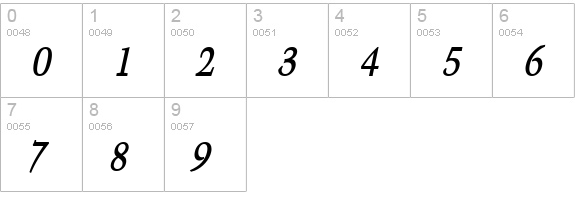
Congo-Condensed Bold Italic is a strong, high-contrast, condensed-width, italic variant in the Congo typeface family \xE2\x80\x94 well suited to headlines, attention-grabbing titles, and strong calls-to-action.
Introducing Congo-Condensed Bold Italic font - a versatile and modern typeface that exudes sophistication and elegance. Its bold yet slanted design adds a touch of flair to any project, making it perfect for a wide range of applications such as branding, advertising, packaging, and more. With its condensed form, this font allows for efficient use of space while maintaining readability and impact. Best of all, Congo-Condensed Bold Italic font is available for free download at FontsMarket.com. This means that you can easily access this high-quality font without any cost, making it a valuable addition to your design toolkit. Whether you are a graphic designer, marketer, or hobbyist, this font offers endless possibilities for creating stunning visuals that stand out from the crowd. Don't miss out on the opportunity to elevate your designs with Congo-Condensed Bold Italic font. Download it for free today and unleash your creativity with this sleek and stylish typeface.